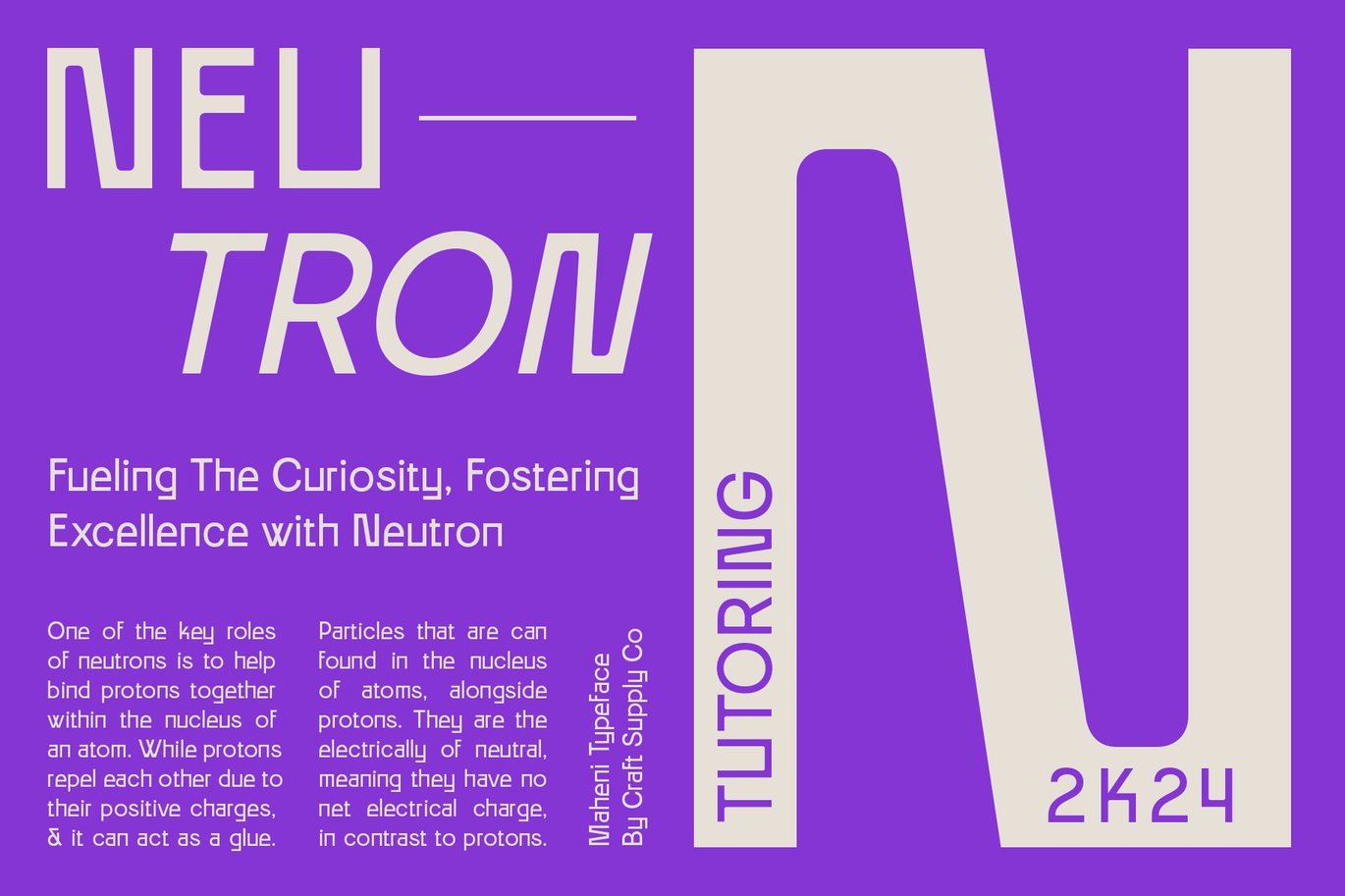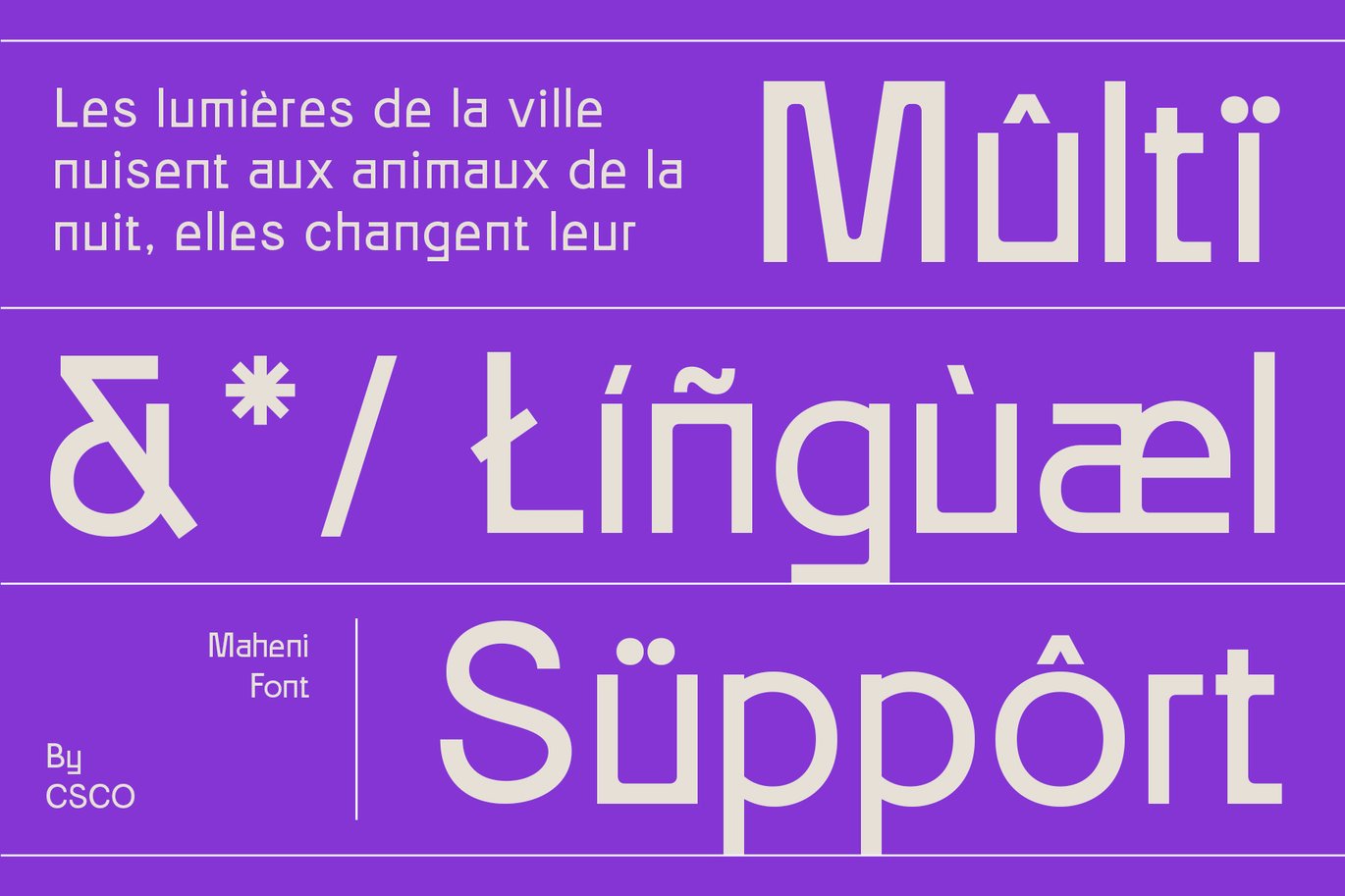
Maheni – Contemporary Sans Font
Maheni – Contemporary Sans Font is a versatile typeface ideal for various projects, including Sans-Serif, logos, branding, posters, blog headers, advertisements. The free version includes a full set of uppercase and lowercase letters, available in OTF, TTF format.